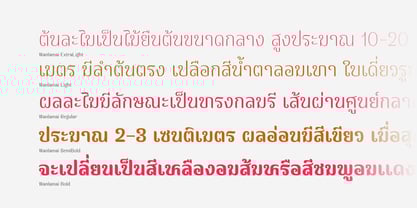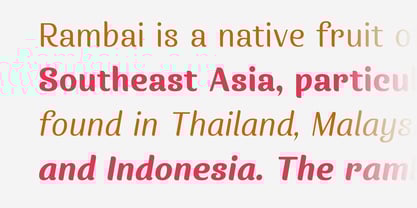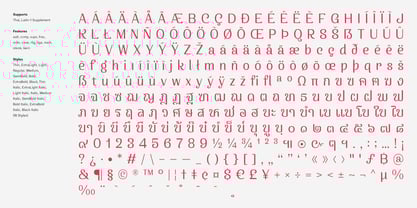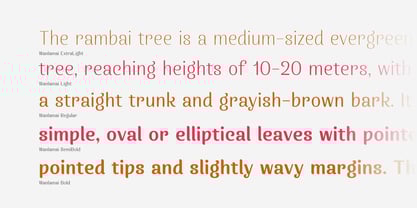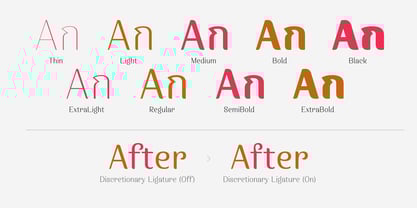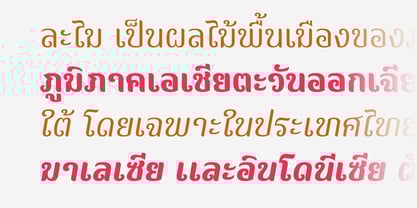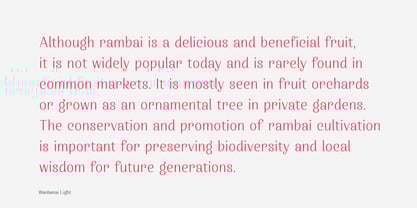
Wanlamai
by Jipatype
The Wanlamai Font Family was designed by Anupap Jaichumnan and published by Jipatype. Wanlamai contains 18 styles and family package options. More about this family
Wanlamai is a distinctive typeface featuring soft, rounded strokes. Its letterforms are carefully designed to harmonize both Thai and Latin scripts, creating a warm, approachable feel. The modern simplicity of Wanlamai makes it ideal for projects that require clarity—such as online media, packaging, or advertising posters. Offered in 18 styles, it supports both Thai and Latin-1.
Designers: Anupap Jaichumnan
Foundry: Jipatype
Jipatype is a type foundry founded and operated solely by Anupap Jaichamnarn, based in Bangkok, Thailand. Officially established in 2022, the foundry's journey began in 2019. The name "Jipatype" is derived from the Thai word “Jipatha” (จิปาถะ), meaning "miscellaneous" or "variety." This name reflects the diverse design concepts and influences that shape Jipatype’s versatile font collections.